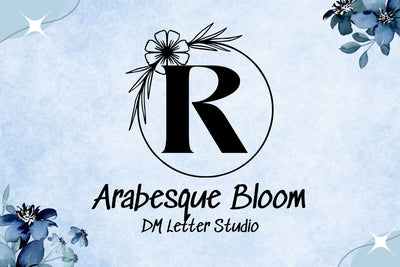
Arabesque Bloom Monogram
Arabesque Bloom Monogram – Ornamental Floral Serif Font
Arabesque Bloom Monogram is a beautifully intricate monogram font that blends classical elegance with blooming floral artistry. Each uppercase letter is adorned with delicately woven arabesque and botanical motifs, perfect for high-end monograms, wedding stationery, boutique branding, and heritage-inspired designs. This font is ideal for those who want to add a touch of romance and luxury to personalized creations.
Floral-Ornate Capitals: Uppercase serif letters infused with detailed arabesque and floral flourishes.
Artistic Elegance: Inspired by vintage filigree and botanical illustrations for a timeless appeal.
Monogram Ready: Crafted for use as initials, wedding logos, or decorative nameplates.